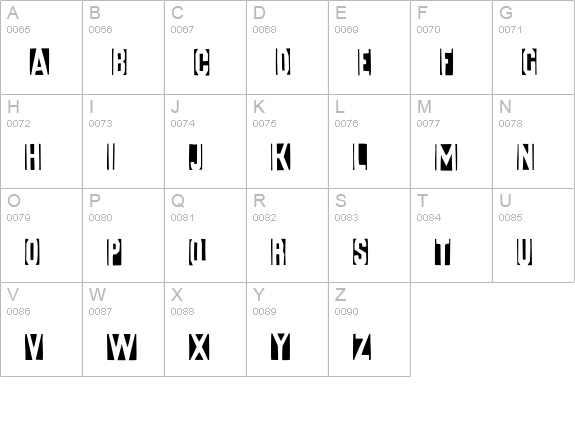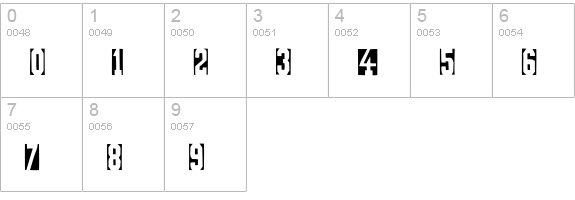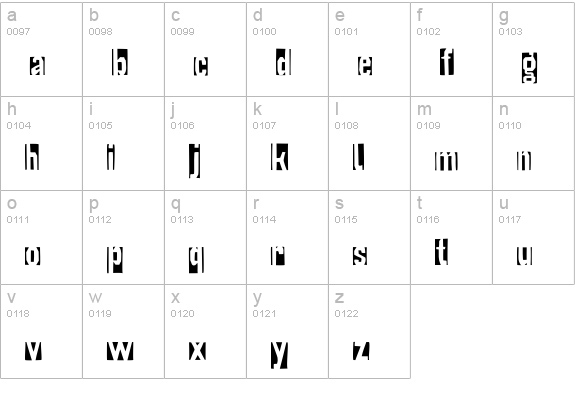
Iodine-Negative Font Details
Iodine-Negative font is a visually striking typeface that captures attention with its bold and dynamic design. This unique font is perfect for adding a touch of modernity and sophistication to any project. With its sharp edges and distinctive letterforms, Iodine-Negative font exudes a sense of confidence and strength. Its sleek and futuristic appearance makes it ideal for various creative applications, such as branding, advertising, posters, and web design. Despite its captivating aesthetics, Iodine-Negative font remains highly legible and readable, ensuring that your message is conveyed effortlessly. Its versatility allows it to be used in both headline and body text, making it a valuable asset in any designer's toolkit. One of the best features of Iodine-Negative font is that it is freely available to download at FontsMarket.com. This means that you can easily access and utilize this exceptional font without any cost or restrictions. Whether you are a professional designer or a hobbyist, you can enjoy the benefits of using Iodine-Negative font in your projects. So why wait? Add a touch of boldness and sophistication to your designs with Iodine-Negative font. Download it for free at FontsMarket.com and unlock a world of creative possibilities.